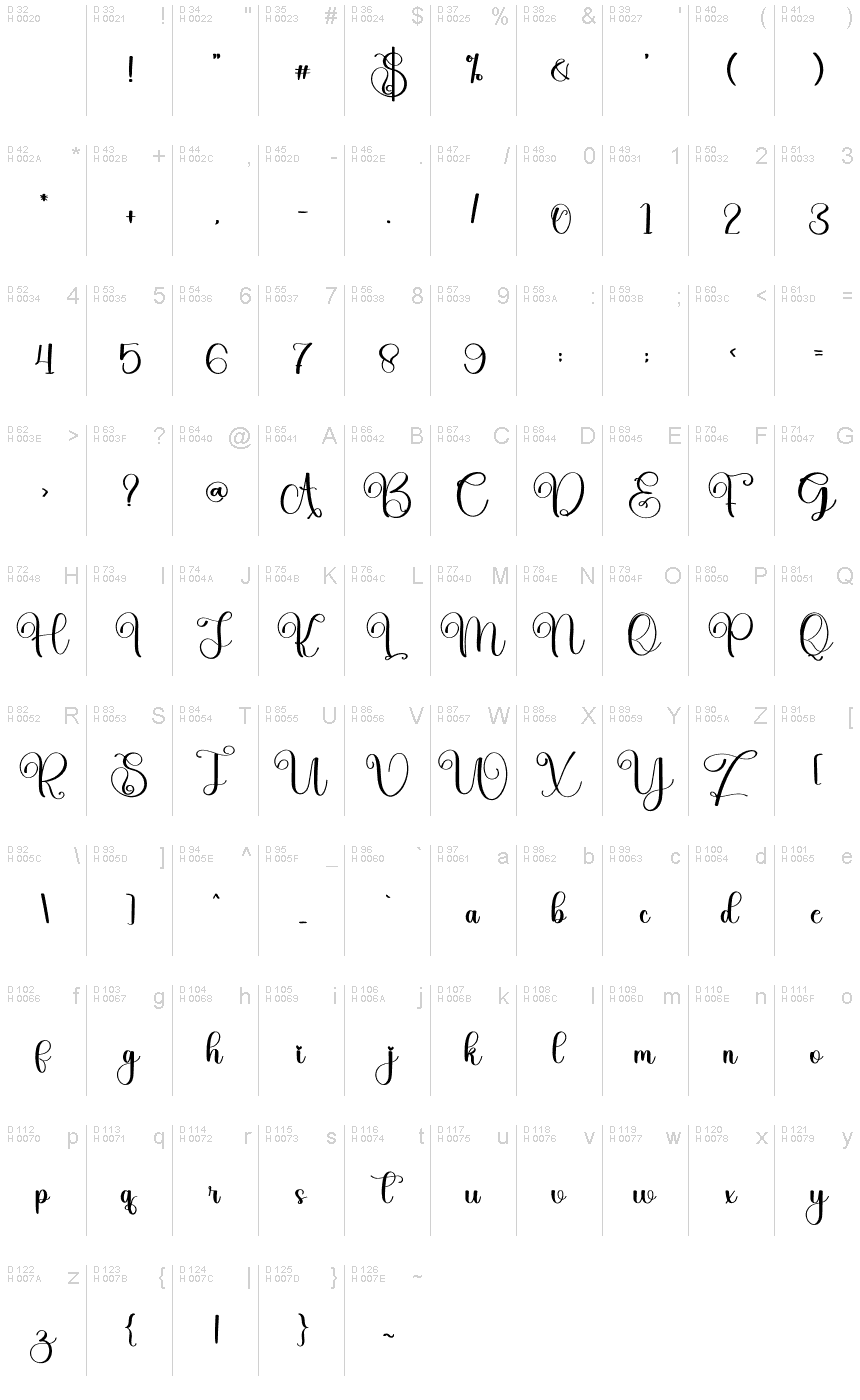
Vanilla
Vanilla, a delightful calligraphy font by Inermedia Studio, adds a touch of elegance and romance to any project. With its semi-light weight, this Valentine-inspired typeface exudes sophistication and grace.
Perfect for wedding invitations, love letters, and greeting cards, Vanilla brings an air of timeless beauty to your designs. Embrace the flowing curves and delicate strokes of this enchanting font to create captivating branding materials or eye-catching social media posts.
Let Vanilla sprinkle your work with a dash of sweetness and charm that will captivate hearts effortlessly.